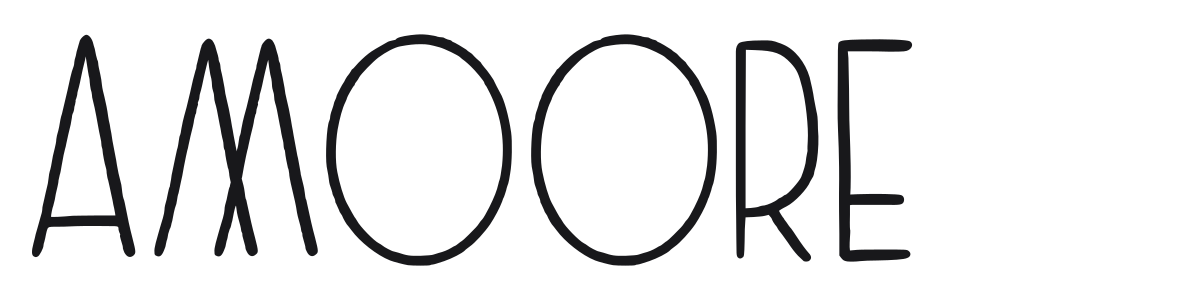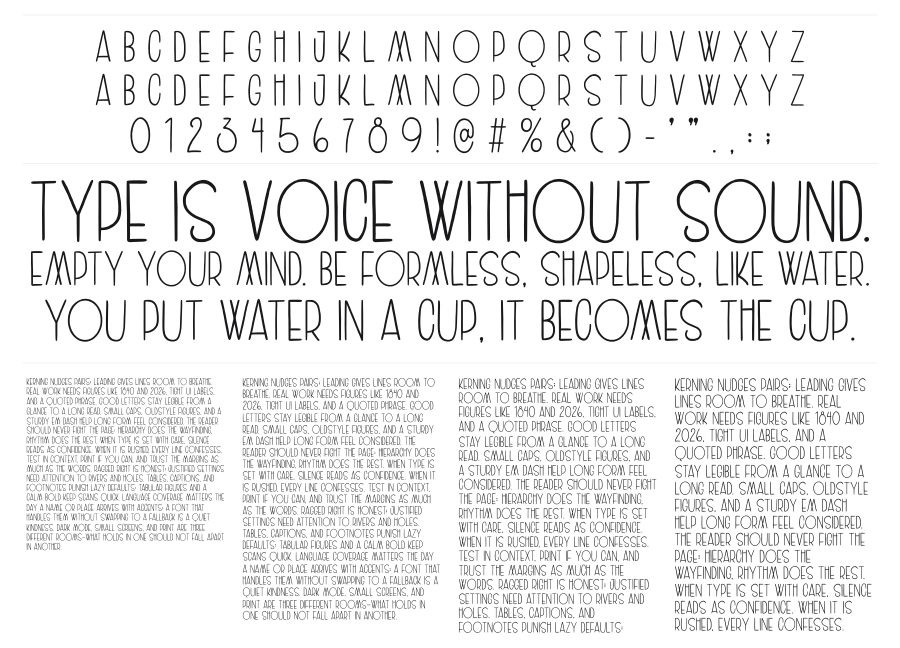
Amoore
Amoore is a tall condensed geometric sans with thin, near-monoweight strokes and an airy, elongated silhouette. Subtle pointed junctions and angled terminals give it a refined Art Deco sensibility without feeling stiff or period-specific. A natural choice for fashion branding, editorial headlines, and packaging where lightness and elegance matter.